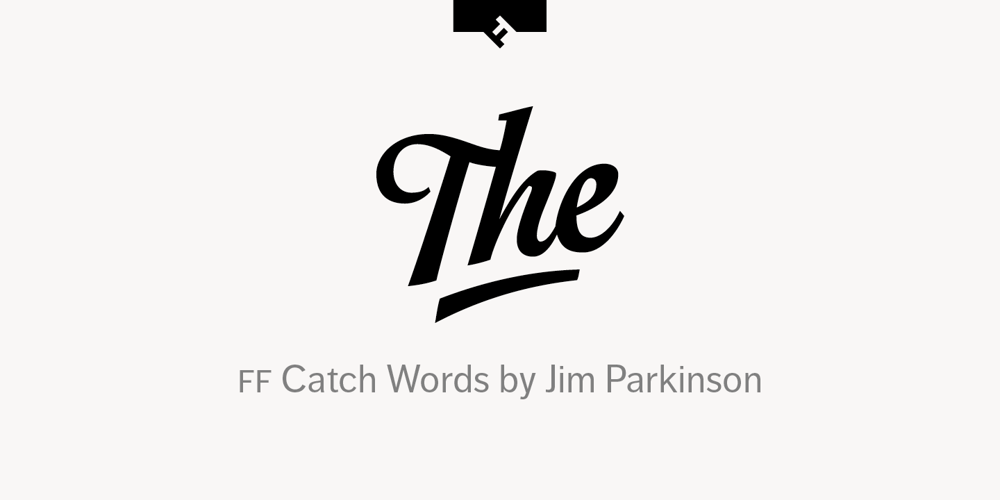
FF Catch Words Font Family was designed by Jim Parkinson and published by FontFont. FF Catch Words contains 2 styles and family package options. American type designer Jim Parkinson created this display FontFont in 1996. The family contains 2 weights and is ideally suited for advertising and packaging, film and tv, editorial and publishing as well as poster and billboards. It comes with proportional lining and proportional oldstyle figures.